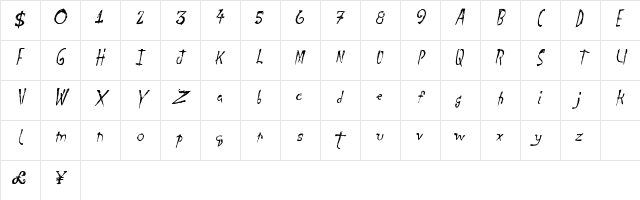
FinalDays Regular
Foundry: Xerographer Fonts
Design Context for FinalDays
FinalDays is a composed and adaptable typeface that performs quietly and consistently across a wide range of design contexts.